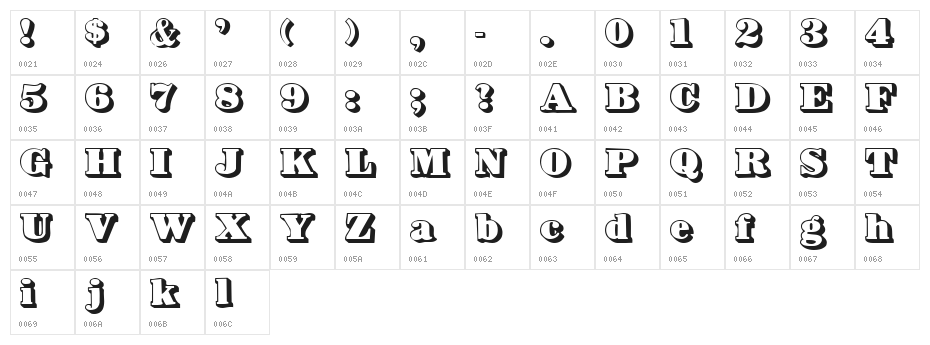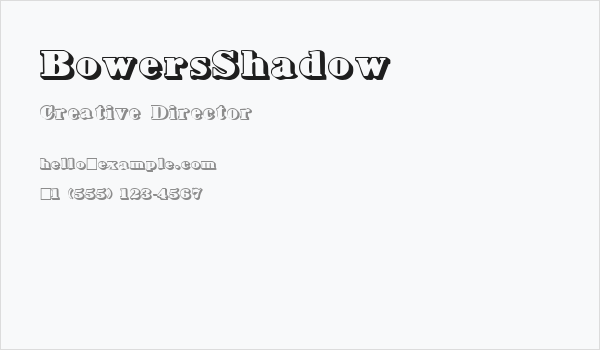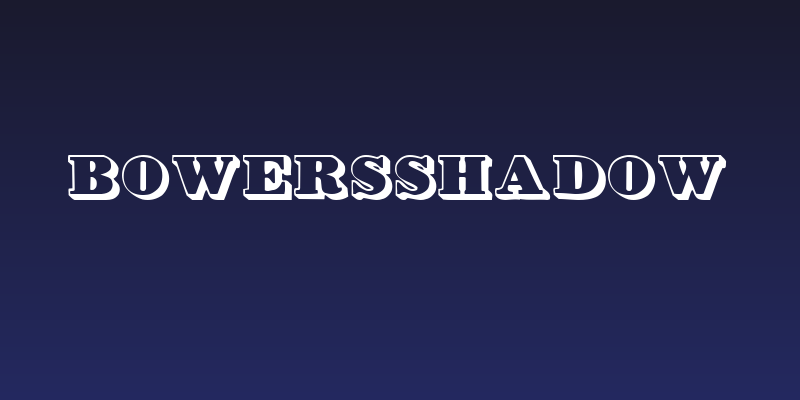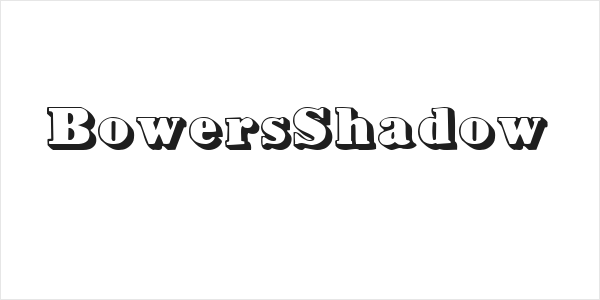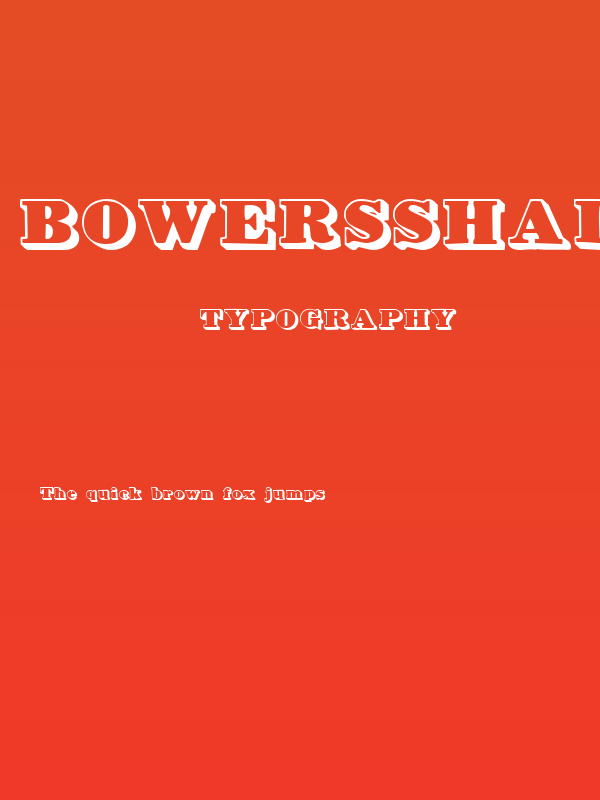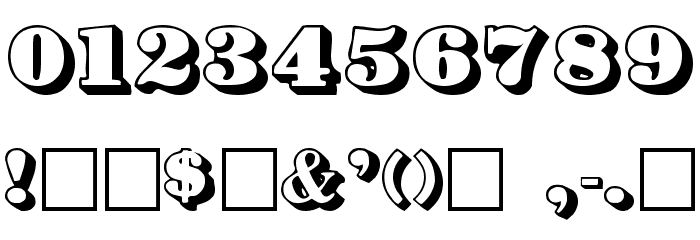
BowersShadow Font
BowersShadow Description
This font features a bold, shadowed style that gives each character a three-dimensional appearance. The letters are uppercase and lowercase, with numerals and special characters included. The shadow effect is consistent across all characters, adding depth and a striking visual impact. The font has a strong, confident presence, making it ideal for attention-grabbing designs. Its boldness is complemented by a slight serif detail, enhancing its classic yet modern appeal. The overall design is clean, with well-defined edges and a balanced structure, ensuring readability while maintaining its decorative flair.
| Proposed Projects | Ideal for posters, headlines, logos, and any design requiring a bold statement. |